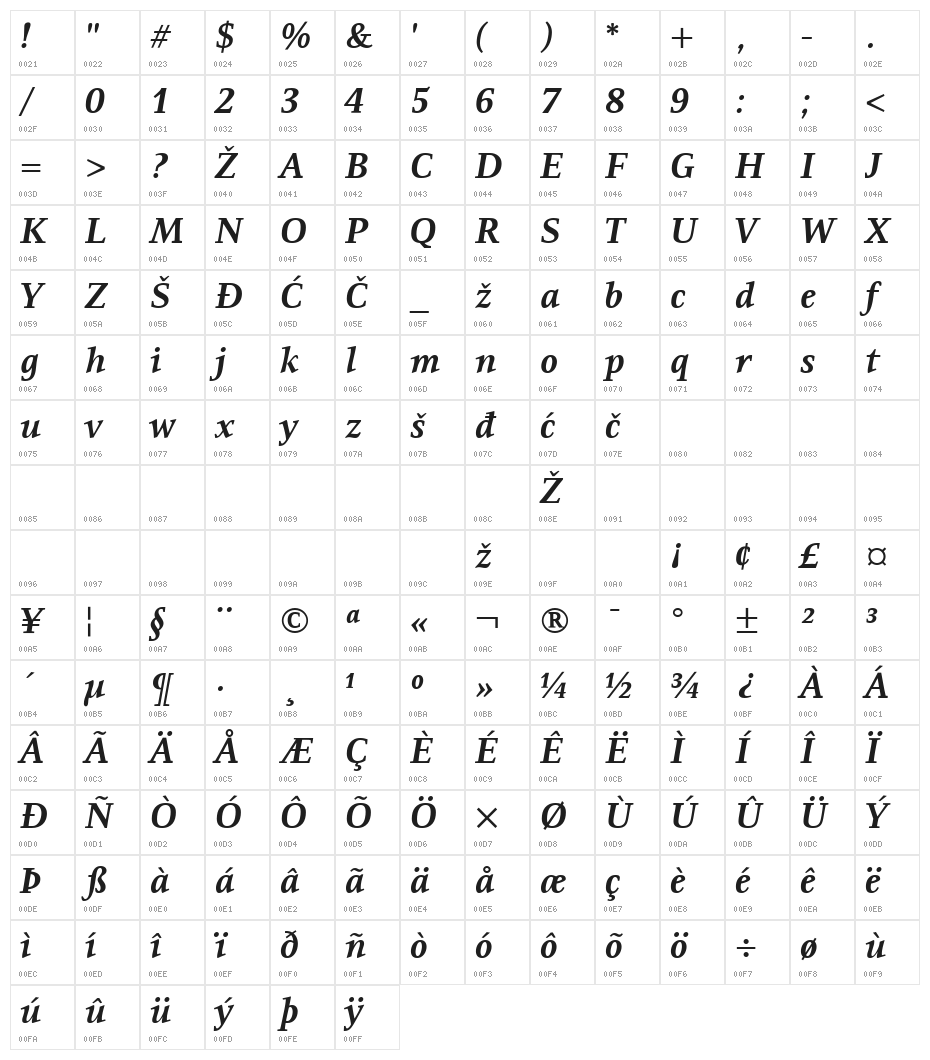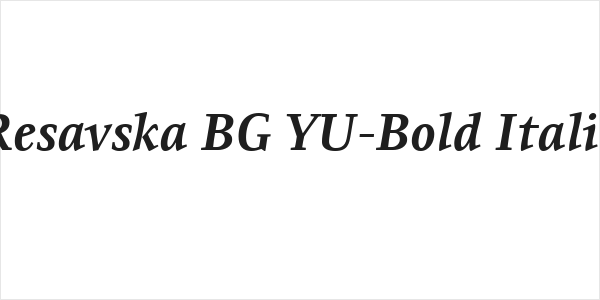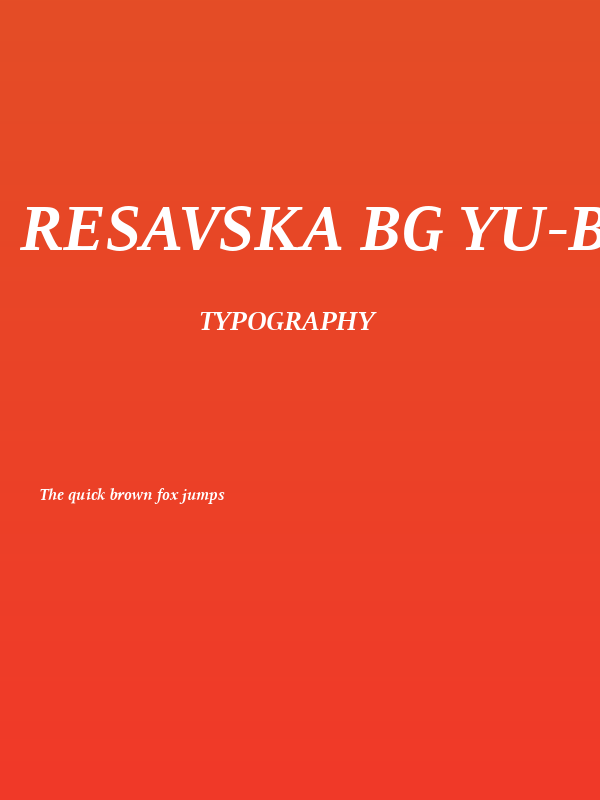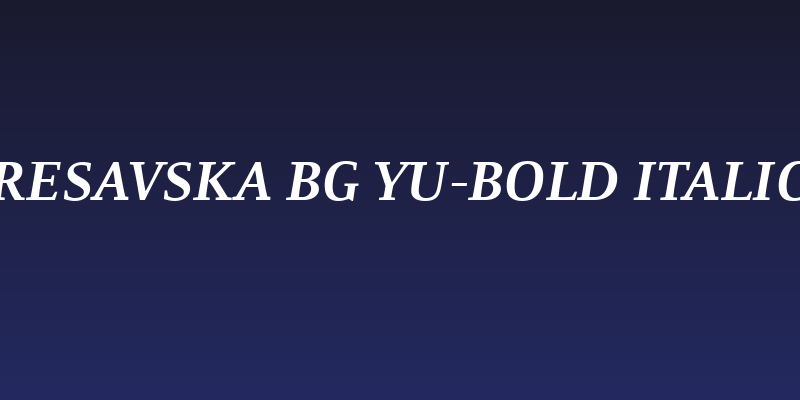
Resavska BG YU-Bold Italic Font
Resavska BG YU-Bold Italic Description
This font exhibits a bold and italic style, characterized by its strong and dynamic presence. The letters are slightly slanted, giving a sense of movement and elegance. The strokes are thick and consistent, providing a bold appearance that stands out. The serifs are pronounced, adding a classic touch to the overall design. The numerals and special characters maintain the same boldness and style, ensuring uniformity across all glyphs. This font is suitable for projects that require a strong and impactful typeface, such as headlines or logos. Its italic nature adds a layer of sophistication, making it versatile for both modern and traditional designs.
| Proposed Projects | Ideal for headlines, logos, branding materials, and editorial design. |